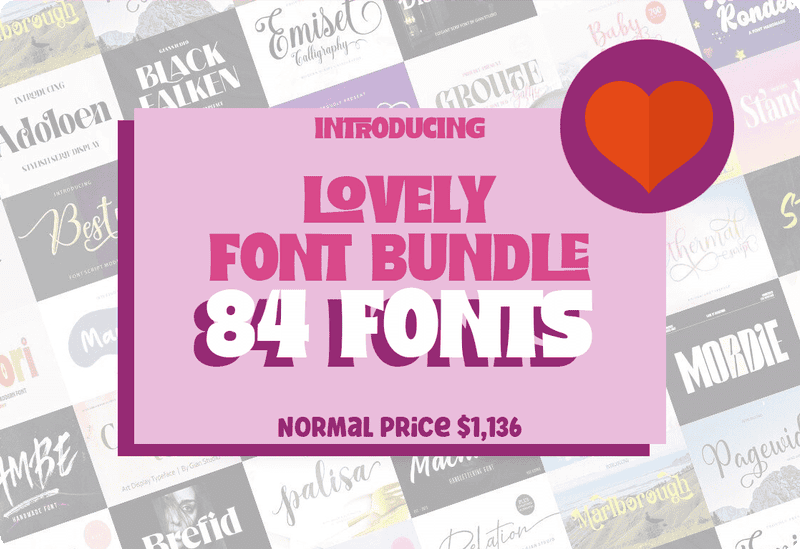
The Lovely Font Bundle is a premium collection of 84 fonts designed for graphic designers, business owners, and creatives looking for high-quality typography. Whether you need fonts for branding, invitations, social media graphics, posters, or digital projects, this diverse selection includes elegant script fonts, bold display fonts, and classic serif fonts.
What’s Included in This Font Collection?
This bundle features a wide range of handwritten, script, serif, and display fonts that suit various design needs:
✔ Elegant Script Fonts – Ideal for wedding invitations, greeting cards, and luxury branding
✔ Modern Serif Fonts – Perfect for business materials, book covers, and editorial design
✔ Bold Display Fonts – Great for posters, advertising, packaging, and social media graphics
✔ Handwritten Fonts – Adds a natural, personal touch to creative projects
✔ Playful & Decorative Fonts – Ideal for fun designs, children’s books, and merchandise
Some of the top-quality fonts included in this bundle:
• Devotion Love – A romantic script font for invitations and personal branding
• Marvelo – A modern display font with strong, eye-catching appeal
• Baby Love – A sweet and stylish handwritten font
• Moonlight – A sleek, flowing script font
• Crash Demons – A bold display font for high-impact designs
• View Night – A sophisticated, elegant font perfect for event branding
• Yasmine Script – A delicate and stylish handwritten font
• Themystory – A charming script font with a natural brushstroke effect
84 Premium Fonts included in this Lovely Font Bundle
• Devotion Love Script & Handwritten Font
• Emiset Calligraphy Script & Handwritten Font
• Relation Skript-Schriftarten Schriftart
• Life Style Serif Font
• Brush Beaute Script & Handwritten Font
• Way Home Script & Handwritten Font
• Alfa Scrip Script & Handwritten Font
• Don’t Worry Serif Font
• Milksty Font Corsivi Font
• Distraction Serif Font
• Kids Angel Script Fonts Font
• Alpebarong Script & Handwritten Font
• Mervyn Script & Handwritten Font
• Marvelo Display Font
• Radenes Sans Serif Font
• Sathya Fuentes Caligráficas Fuente
• Marlborough Serif Font
• Brundox Display Font
• Quantica Fuentes Display Fuente
• Calera Serif Font
• Machinas Display Font
• Lusiana Script & Handwritten Font
• Baby Love Script & Handwritten Font
• Dolphina Font Corsivi Font
• View Night Skript-Schriftarten Schriftart
• Groute Script & Handwritten Font
• Black Falken Display Font
• Adoloen Fuentes Serif Fuente
• Flounder Script Script & Handwritten Font
• Rounddown Fuentes Caligráficas Fuente
• Scary Movie Script & Handwritten Font
• Caster Serif Font
• Moonlight Script & Handwritten Font
• Handyplast Serif Font
• Crash Demons Display Font
• Helenia Sweetness Fuentes Caligráficas Fuente
• Molisha Script Script & Handwritten Font
• Breston Sans Serif Font
• Airwhite Script & Handwritten Font
• Thermal Script Script & Handwritten Font
• Swallow Script Script & Handwritten Font
• Ponita Serif Font
• Sambo Briliant Serif Font
• Cemany Toka Display Font
• Besty Script & Handwritten Font
• Hereford Script Script & Handwritten Font
• Audie Serif Font
• Larrisha Script & Handwritten Font
• Delhi Script & Handwritten Font
• Shallone Script & Handwritten Font
• Insigne Display Font
• Saint Kitts and Nevis Script & Handwritten Font
• Pagewide Script & Handwritten Font
• Nadysah Display-Schriftarten Schriftart
• Stabelo Script & Handwritten Font
• Linsela Script Script & Handwritten Font
• Priestley Script & Handwritten Font
• Astori Display Font
• Standing Display Font
• Delina Script & Handwritten Font
• Kesawan Script & Handwritten Font
• Bambe Display Font
• Lemodis Display Font
• Angulata Script & Handwritten Font
• Rangile Serif Font
• Longsile Serif Font
• Palisa Script & Handwritten Font
• Shelikes Script & Handwritten Font
• Salsabela Script Script & Handwritten Font
• Kalina Script & Handwritten Font
• Blondey Script Script & Handwritten Font